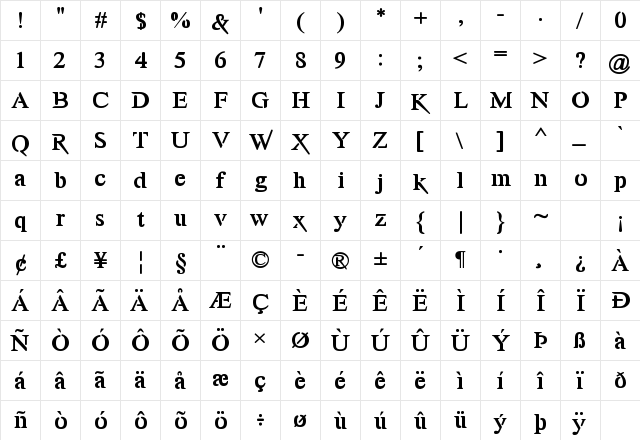
Awery Regular
Design Context for Awery Typeface
Awery offers clean, dependable letterforms without strong stylistic allegiance, making it a practical choice for designers who need flexibility.
Pro Tip: Use Awery in both headline and body roles to test its range before committing to a single application.